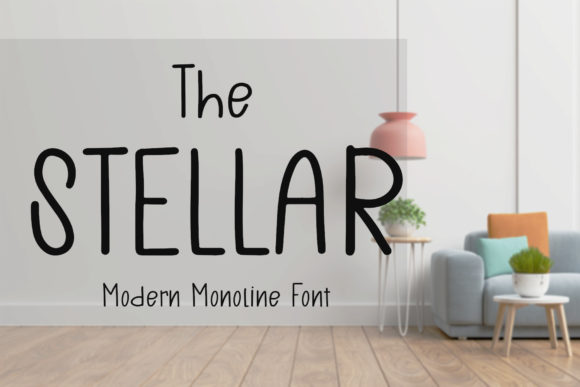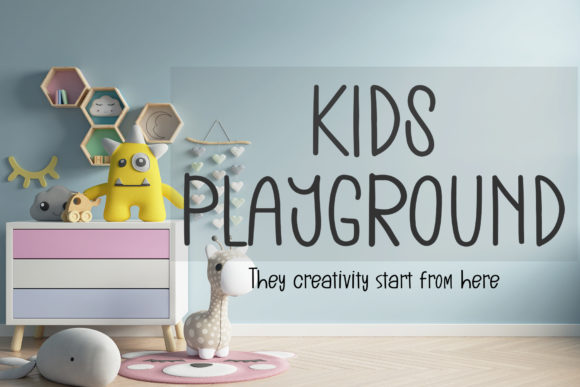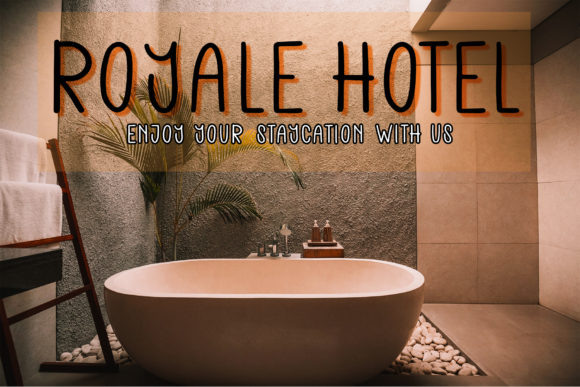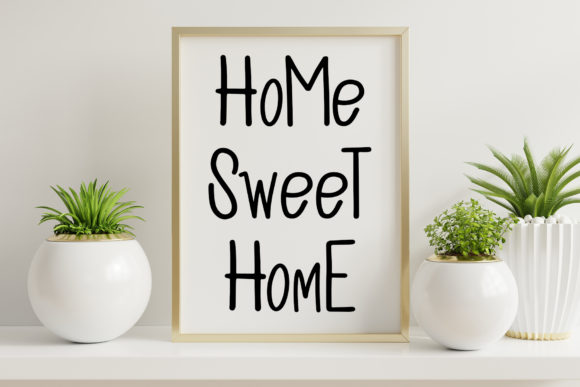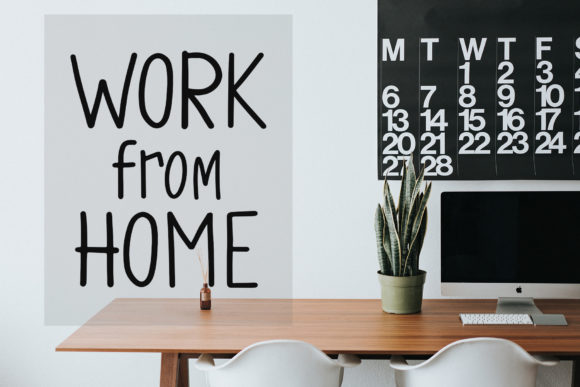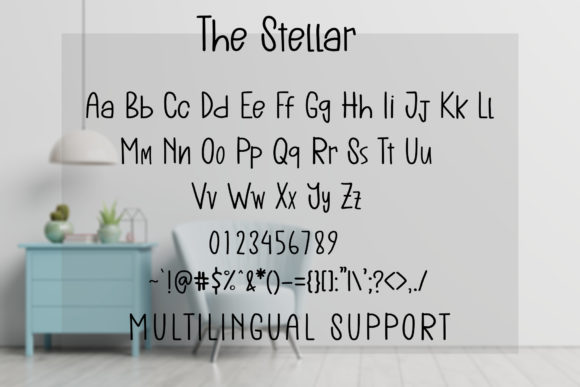
The Stellar Font
About The Stellar Font
The Stellar is a sweet and delicate handwritten font. It is tall and thin and is the ideal choice for a variety of designs that may need a personalized touch.